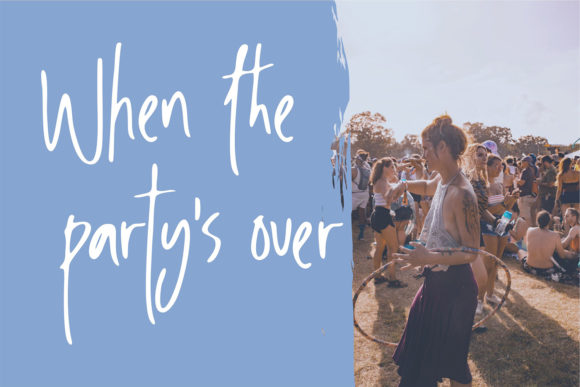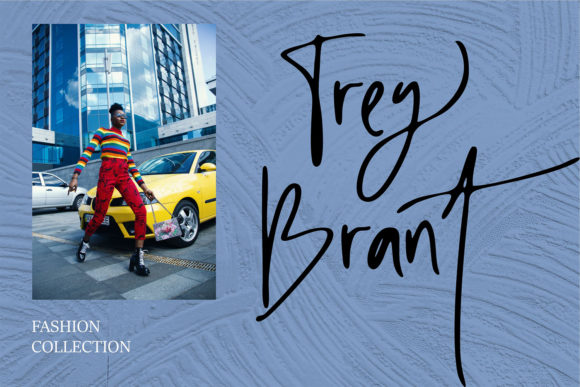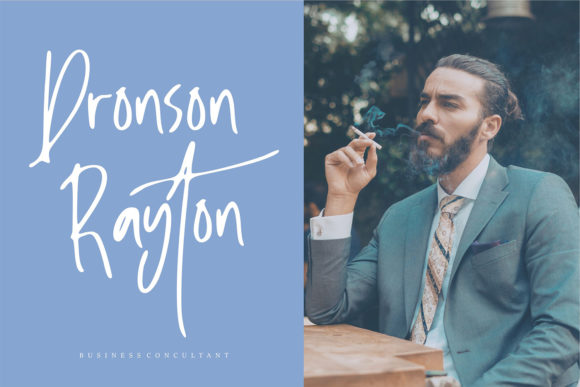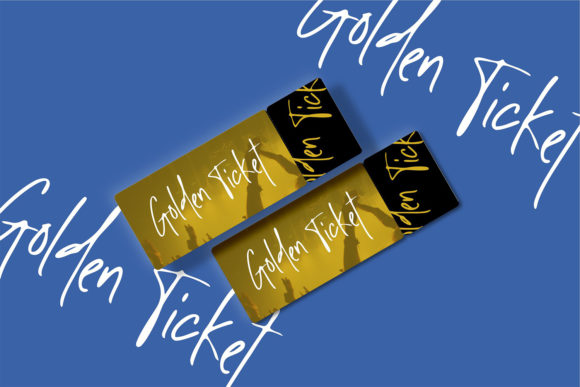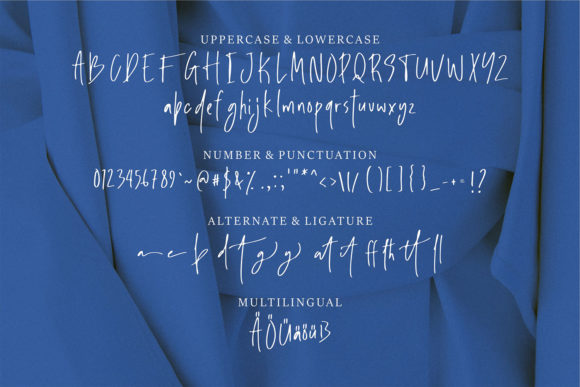
Introducing Gliffin Font: The Perfect Blend of Quirkiness and Elegance
In the world of typography, fonts play a crucial role in conveying the tone and personality of a brand, design, or message. For designers and crafters looking for a unique and playful script to add a touch of whimsy to their work, Gliffin Font is an excellent choice. This fresh and modern script font boasts a carefree attitude and a playful edge, making it perfect for a wide range of design applications.
What Makes Gliffin Font Stand Out?
Gliffin Font is not just another script font; it’s a carefully crafted typeface designed to bring a sense of fun and casual elegance to any design project. Here are some of its standout features:
- Unique and Fresh Design: Gliffin Font features a distinctive and modern script style that sets it apart from more traditional fonts. Its unique letterforms and flowing connections make it a joy to use in a variety of design contexts.
- Carefree and Playful Edge: The font’s playful edge gives it a lively and energetic feel, perfect for designs that need to convey a sense of fun and spontaneity.
- Large Selection of Ligatures: Gliffin Font comes with a large selection of natural-looking ligatures, which help to create a more fluid and connected script. This feature is especially useful for creating elegant and sophisticated text.
Gliffin Font’s versatility makes it suitable for a wide range of design projects, including:
- Logos: The font’s unique and memorable style makes it perfect for creating eye-catching logos that stand out from the crowd.
- Invitations: Whether you’re designing wedding invitations, birthday party invites, or any other type of event invitation, Gliffin Font adds a touch of elegance and whimsy.
- Wedding Designs: For wedding-related designs, such as save-the-date cards, wedding programs, or bridal shower invitations, Gliffin Font provides a romantic and playful feel.
- Social Media Posts: Add a dash of personality to your social media posts with Gliffin Font. It’s perfect for creating engaging and shareable content that stands out in crowded feeds.
Why Choose Gliffin Font?
With so many fonts available, why choose Gliffin Font for your design projects? Here are a few compelling reasons:
- Readability: Despite its playful nature, Gliffin Font remains highly readable, making it suitable for both short and long text passages.
- Flexibility: The font’s versatility allows it to be used in a variety of contexts, from digital designs to print materials.
- Uniqueness: In a sea of generic fonts, Gliffin Font offers a refreshing change of pace with its distinctive style and ligatures.
Tips for Using Gliffin Font Effectively
To get the most out of Gliffin Font, consider the following tips:
- Experiment with Ligatures: Take advantage of the font’s ligatures to create beautiful, connected script.
- Play with Sizes and Colors: Don’t be afraid to experiment with different sizes and colors to add visual interest to your designs.
- Mix with Other Fonts: Gliffin Font pairs well with a variety of other fonts. Try combining it with a sans-serif font for a modern look or with a serif font for a more classic feel.
Gliffin Font is a fantastic addition to any designer’s toolkit. Its unique blend of quirkiness and elegance makes it perfect for a wide range of design applications, from logos and invitations to social media posts and wedding designs. With its large selection of natural-looking ligatures and highly readable design, Gliffin Font is sure to bring a touch of whimsy and sophistication to your work. So why settle for ordinary fonts when you can add a dash of personality to your designs with Gliffin Font?